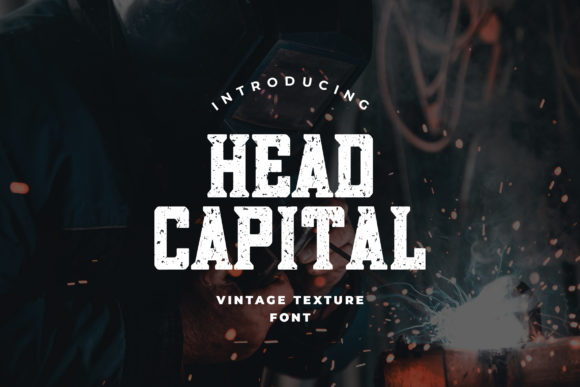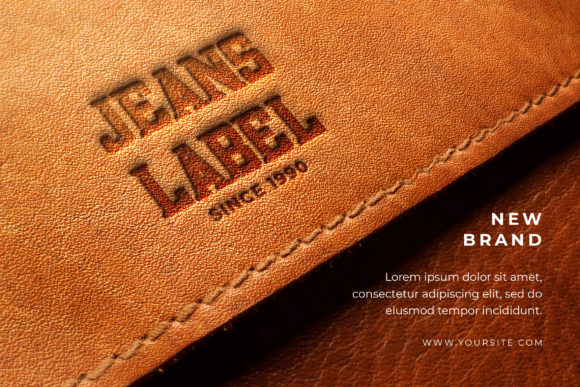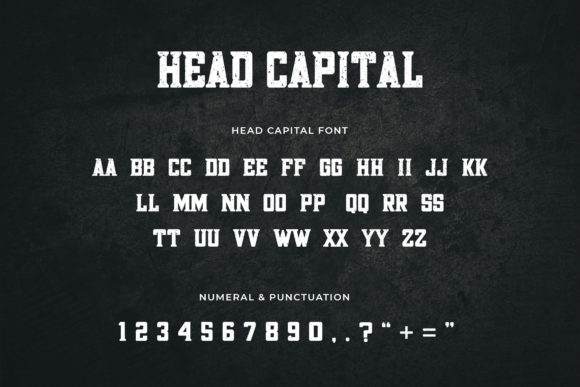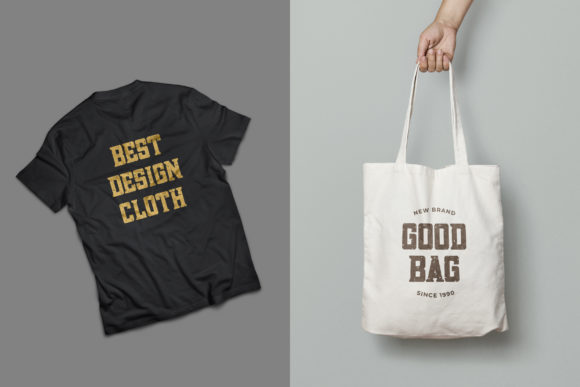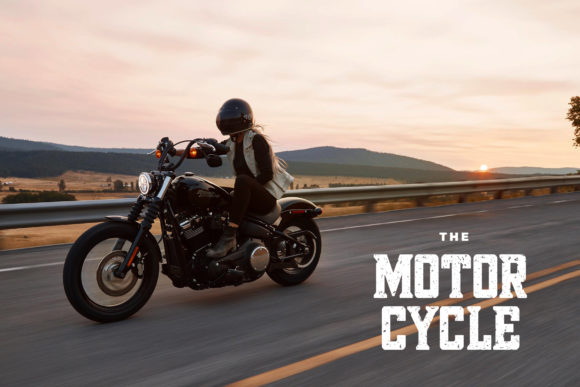
Head Capital
Head Capital: A Bold and Classic Slab Serif Font
Head Capital is a distinctive slab serif font that combines boldness with classic design elements. This typeface offers designers a powerful tool for creating impactful typography across a wide range of creative projects.
Key Features of Head Capital
• Bold Design: Features a strong, eye-catching appearance that commands attention
• Classic Aesthetic: Incorporates timeless elements reminiscent of traditional typography
• Slab Serif Structure: Maintains the characteristic thick, rectangular serifs typical of slab serif fonts
• Versatile Application: Suitable for a variety of creative ideas
• Stand-Out Quality: Designed to make creative ideas pop and come alive
Ideal Uses for Head Capital
Head Capital’s unique characteristics make it particularly well-suited for:
• Impactful headlines and titles
• Logo design and branding projects
• Poster and advertisement layouts
• Book covers and editorial designs
• Packaging design for products requiring a bold, classic look
When incorporating Head Capital into your designs, consider the following tips:
• Use for headlines or short blocks of text to maximize its bold impact
• Experiment with different sizes to create hierarchy while maintaining readability
• Pair with simpler sans-serif fonts for body text to create contrast
• Consider using it in projects where you want to convey strength and timelessness
Head Capital is an excellent choice for designers looking to add a bold and classic slab serif to their typographic toolkit. Its ability to make creative ideas come alive makes it stand out in the world of typography. Whether you’re working on logo designs, creating layouts for editorial projects, or developing branding for various businesses, Head Capital offers the perfect blend of boldness and classic style.
Add Head Capital to your most creative ideas and watch how it brings them to life with its bold and classic character. From striking headlines to impactful branding elements, this font provides the tools to create memorable typography that stands out in various design contexts.